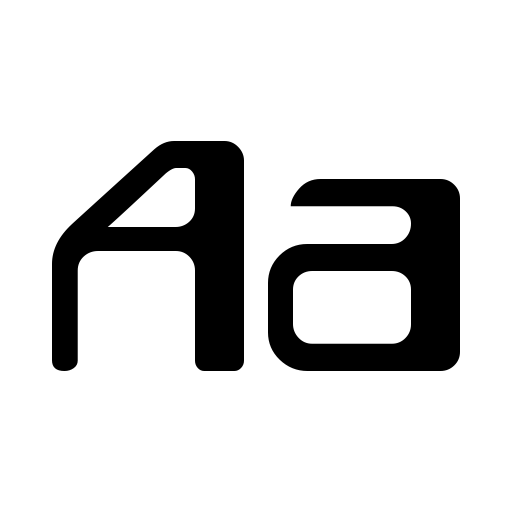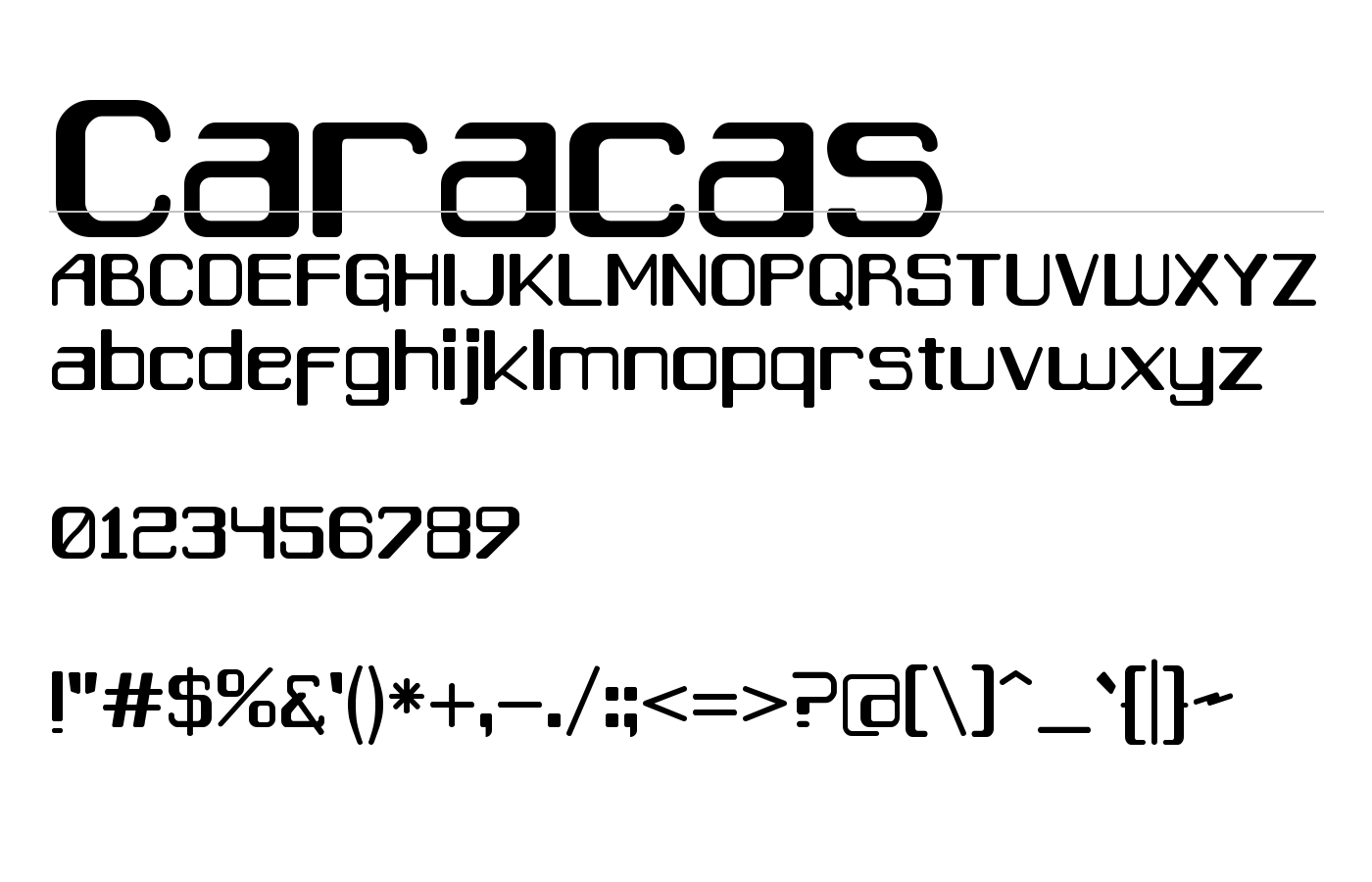
Caracas is a modern, sans serif typeface with a sleek, geometric design characterized by its even stroke weight and rounded corners, giving it a friendly yet futuristic appearance. Its tall x-height and clean letterforms make it highly legible and versatile, ideal for tech-focused branding, digital interfaces, and contemporary editorial use where a fresh, approachable style is desired.
Caracas Font
About Caracas Font
| Font family | Caracas Font |
| Designer | Jorge Algarin |